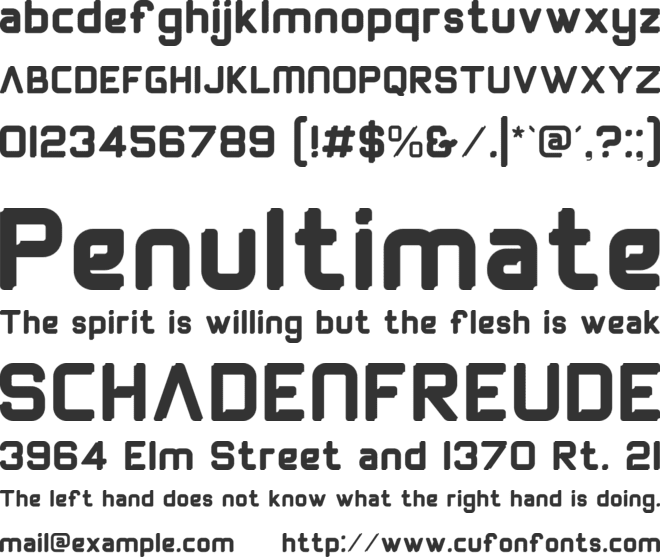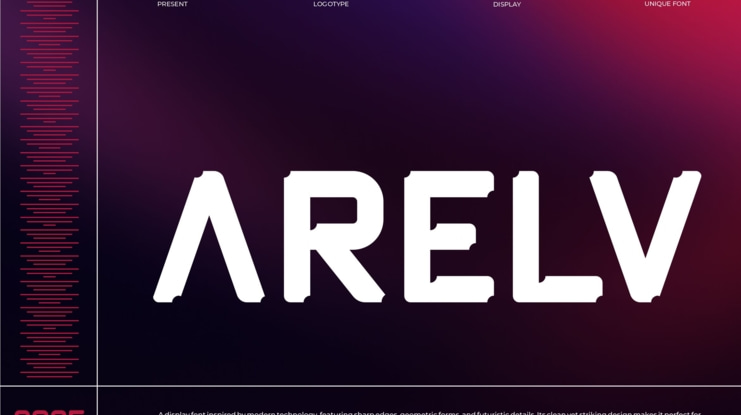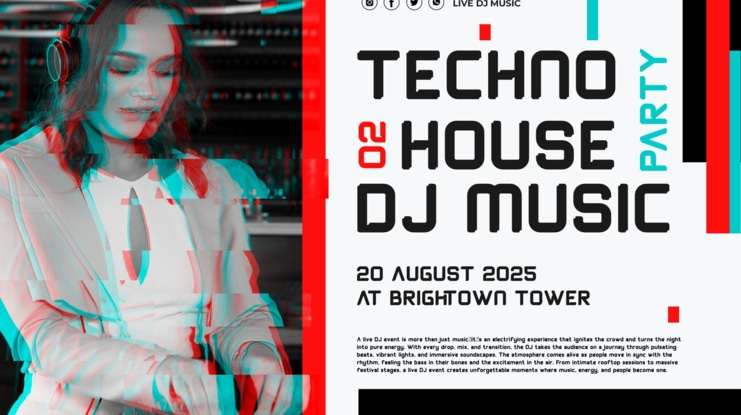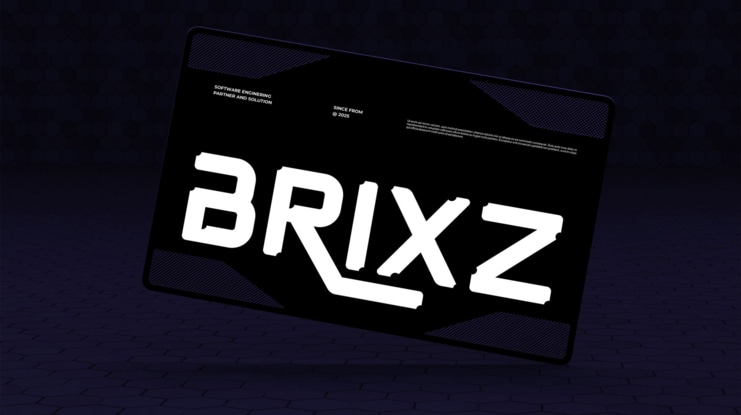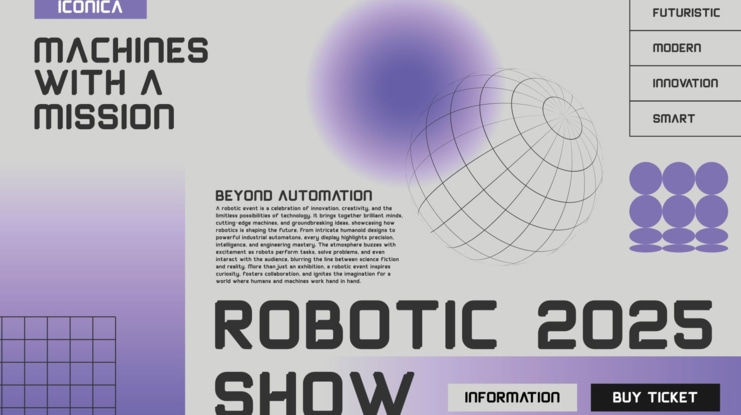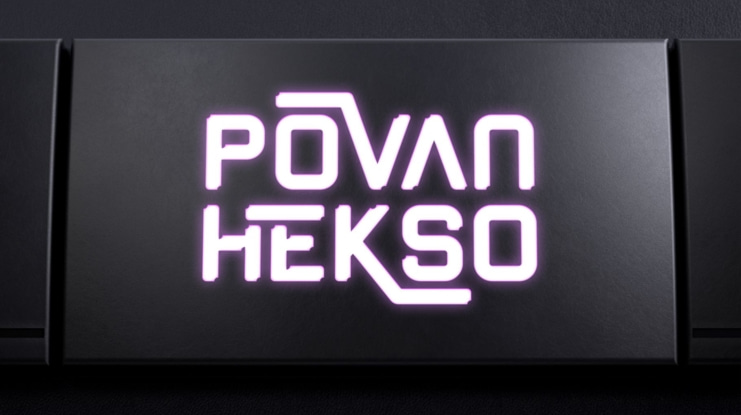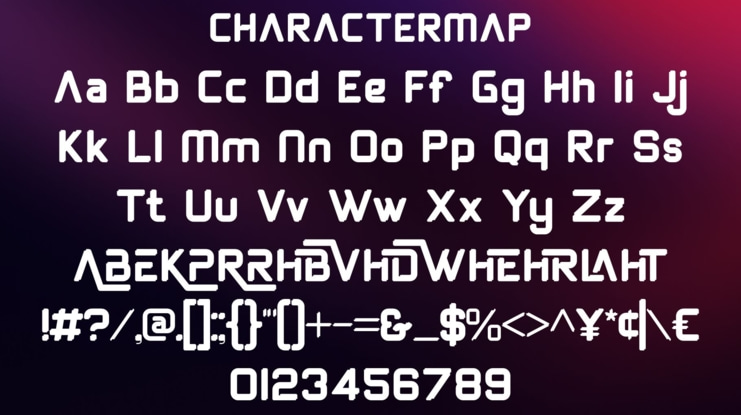
Arelv Font
Arelv Sans Serif is a modern futuristic font type for all branding and logo designs. This modern and futuristic sans serif font has a beautiful character. This font is suitable for invitation card designs, cool logos, movie titles, movie names, business cards, book titles, brand names, and various other designs. Arelv Sans Serif is a smooth sans serif font that exudes sophistication and the moment. Its stylish ligatures make this font a perfect partner for any project.
FEATURE :
- Ligature
- Uppercase and lowercase
- Numbering and Punctuation